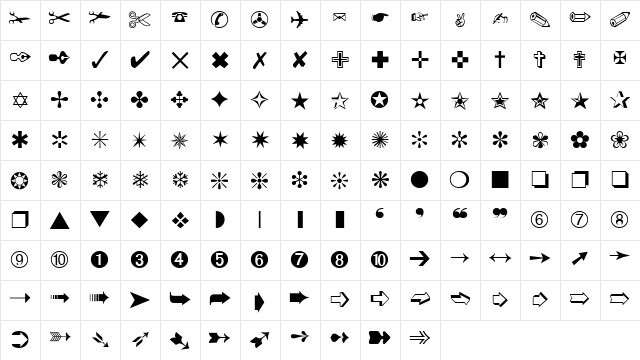
Dingbats3 Normal
Design Context for Dingbats3 Typeface
Dingbats3 is a composed and adaptable typeface that performs quietly and consistently across a wide range of design contexts.